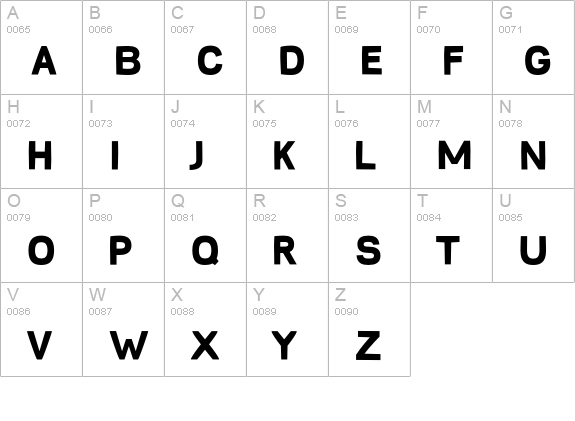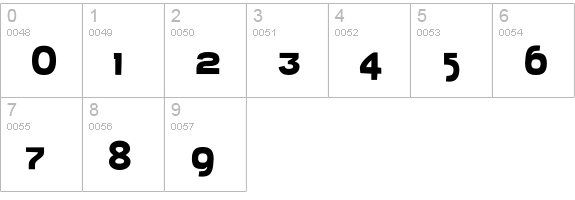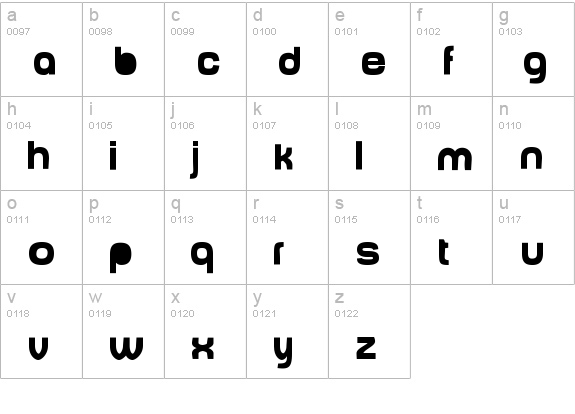
BabyMineFat Font Details
Introducing BabyMineFat, a delightful and playful font that adds a touch of whimsy to any project. With its chubby letterforms and rounded edges, BabyMineFat exudes a sense of innocence and joy, making it perfect for children's books, baby shower invitations, and playful branding. But what sets BabyMineFat apart is not just its adorable design, but also its accessibility. We believe that creativity should be free and accessible to all, which is why BabyMineFat is freely available to download at FontsMarket.com. Whether you're a professional designer or a DIY enthusiast, you can now seamlessly incorporate this charming font into your projects without any cost. The versatility of BabyMineFat knows no bounds. Its bold and legible letterforms ensure readability across various mediums, from digital designs to print materials. Its generous spacing and smooth curves create a harmonious flow, making it a joy to read and a pleasure to behold. Embrace the childlike wonder and playfulness of BabyMineFat and let your imagination run wild. Whether you're designing a cute birthday card or revamping a nursery, let this font bring life to your creations. So go ahead, download BabyMineFat for free at FontsMarket.com and unlock a world of creative possibilities.